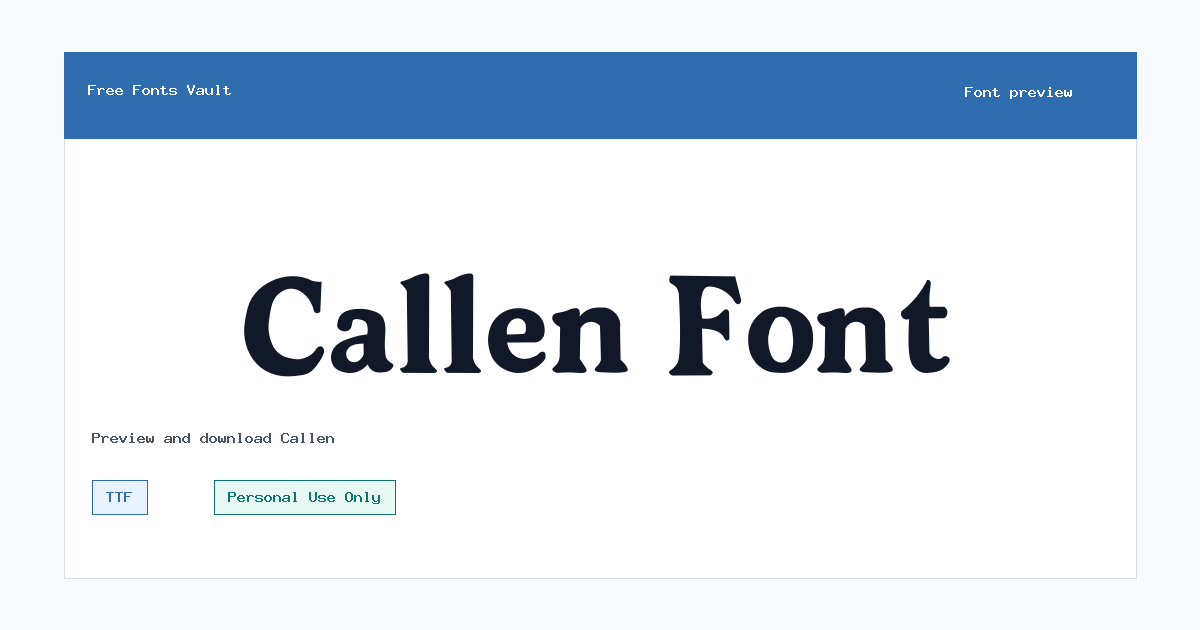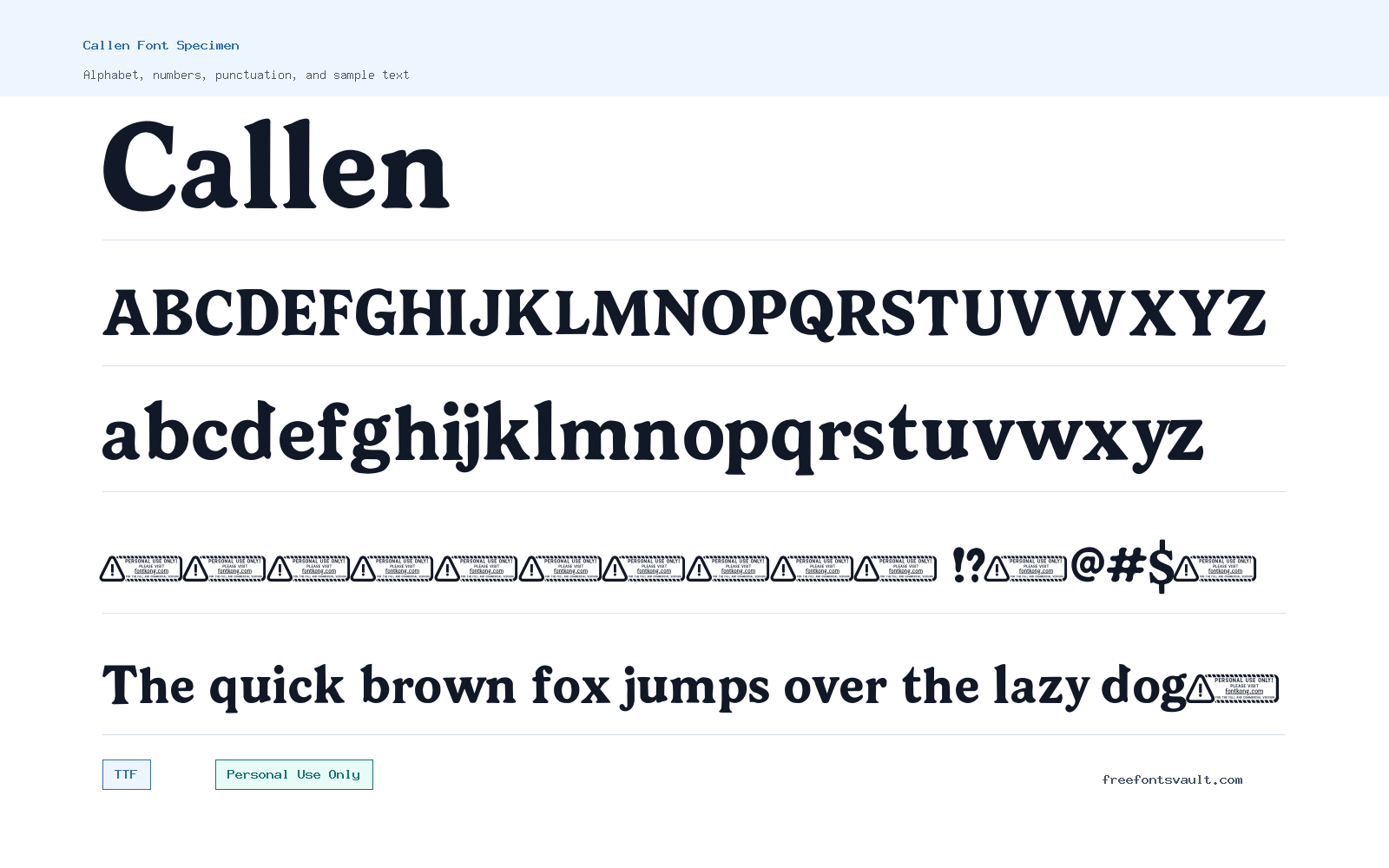
Callen
Callen font preview showing the family name
Callen Font
Callen font specimen showing alphabet, numbers, and sample text
Callen font.
Callen is a serif font from Kong Font with a personal-use-only license. It has a clean, modern serif look in TTF format, so visitors can test it quickly in the preview before deciding whether it fits a personal design project.
About Callen
Callen works best when you want a serif that feels neat, structured, and a little polished without becoming overly decorative. Its described traits include sharp serifs, balanced proportions, even spacing, and an easy-to-read appearance. Those qualities make it more suitable for display text, headings, names, invitations, simple editorial layouts, packaging mockups, and logo drafts than for long paragraphs. If you plan to use it for body copy, preview several lines first and check spacing at the exact size you need.
Use the tester with real words from your project, not only the default sample text. Try uppercase, lowercase, numerals, punctuation, and any accented characters you expect to need. Pair Callen with a quiet sans serif for menus, descriptions, or supporting copy so the serif shapes can lead the design. Keep contrast, line height, and letter spacing modest; too much tracking can make sharp serif details feel separated. For print-style mockups, test both dark-on-light and light-on-dark settings, because thin strokes and serif points can change quickly with size, color, and background texture.
• Modern serif styling with sharp serif details and balanced proportions.
• Personal invitation drafts, name cards, social graphics, and elegant headings.
• Editorial-style title treatments, packaging mockups, and logo concepts that need a refined serif voice.
Before downloading, type your own headline or brand wording into the preview box. Check how the capitals, thin strokes, and punctuation look at small and large sizes. For longer text, combine Callen with a simpler sans serif and keep Callen for titles or short emphasis.
What kind of design is Callen good for?
Callen is best tested for short serif uses such as headings, invitations, packaging mockups, editorial titles, and logo drafts. Always preview your exact wording first.